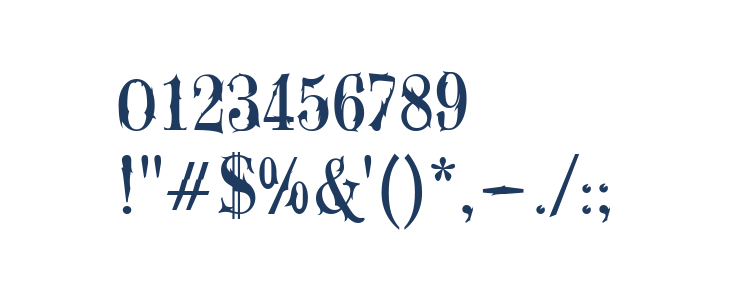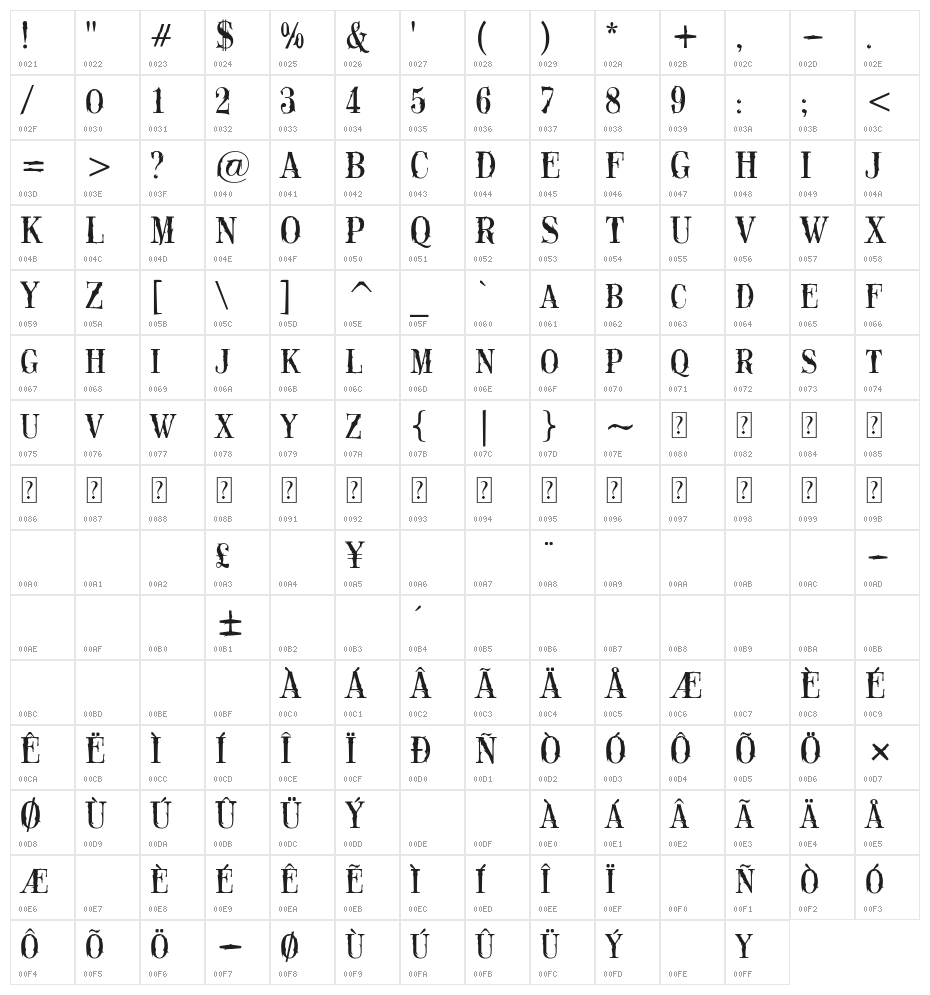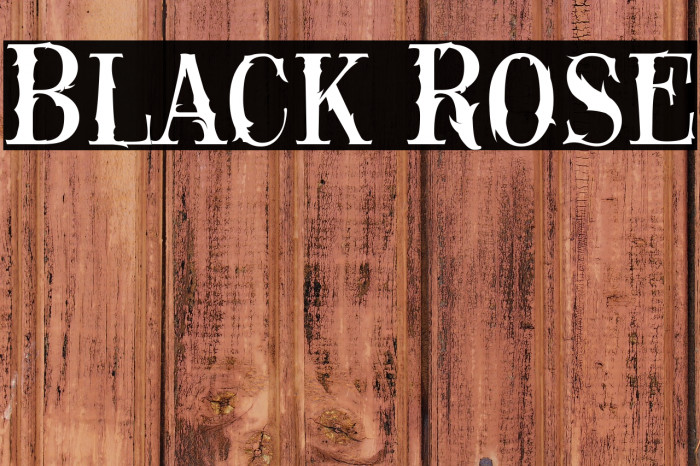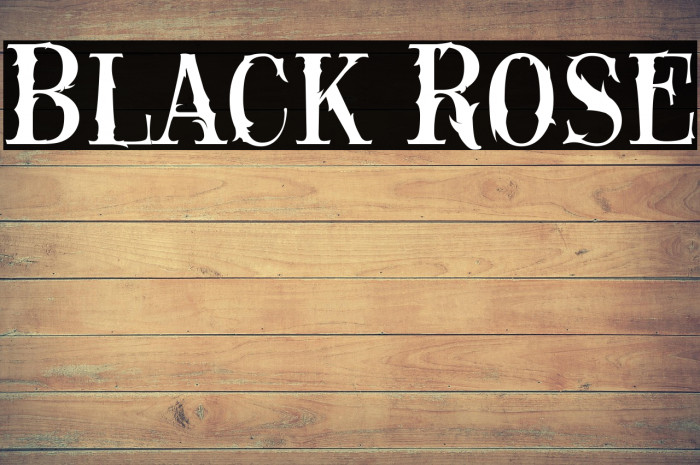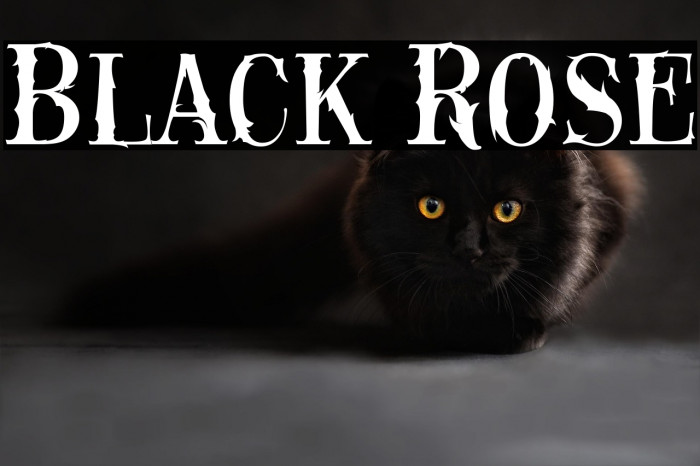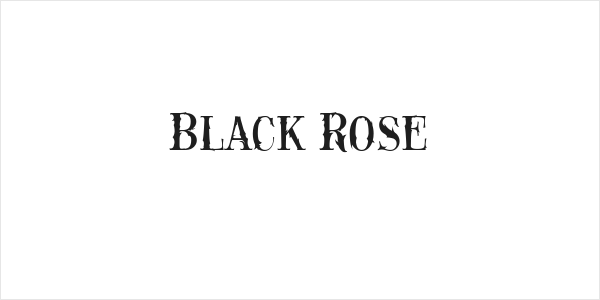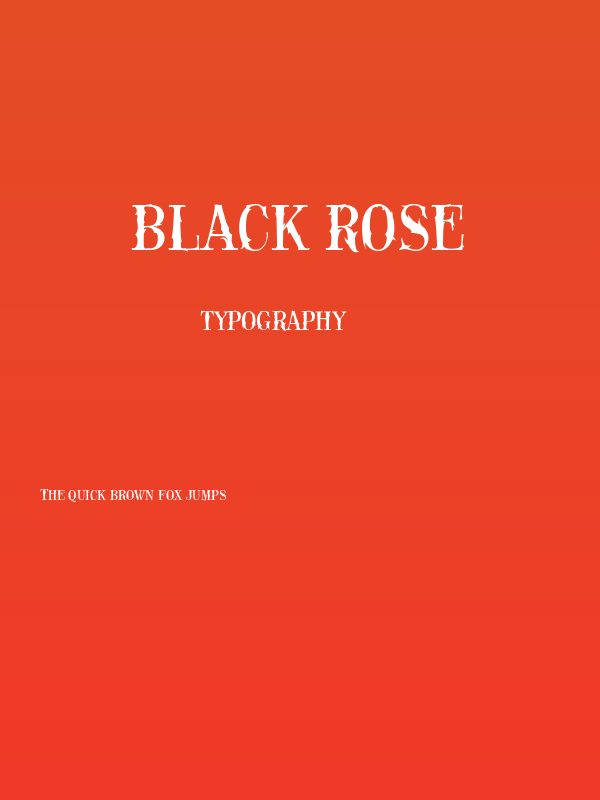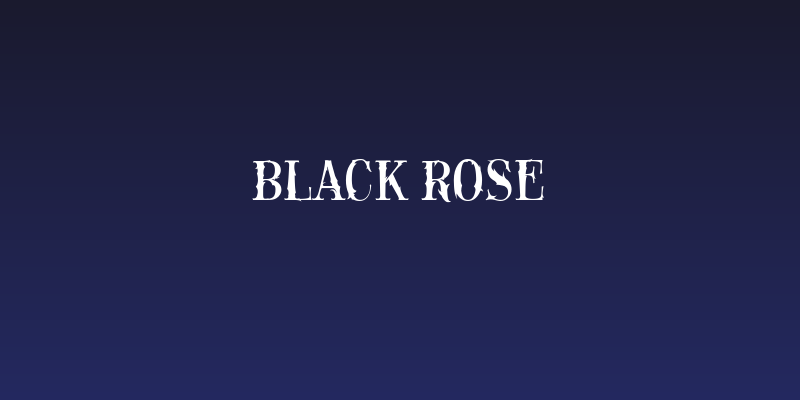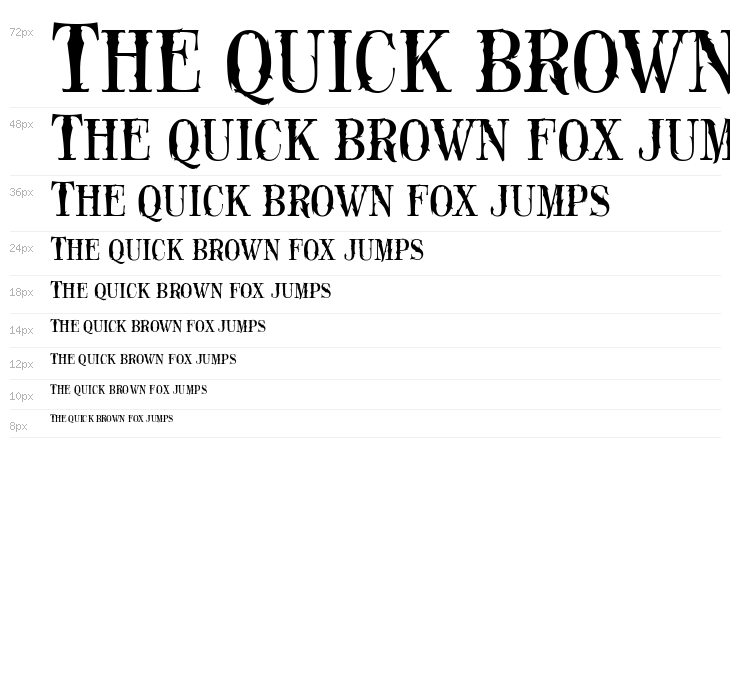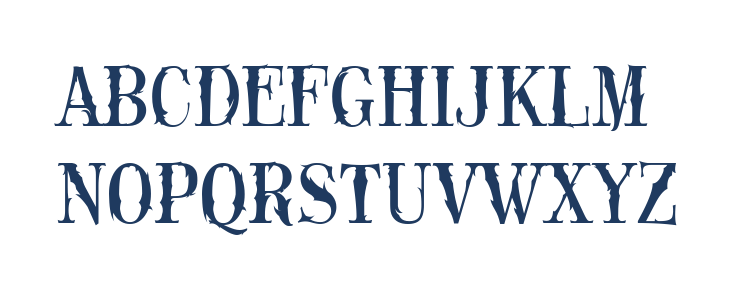
Black Rose Font
Black Rose Description
This font features a dramatic and bold design with a distressed, grunge-like appearance. The characters are serifed, with each letter exhibiting a unique, weathered texture that gives it a rugged and edgy feel. The uppercase and lowercase letters maintain a consistent style, with sharp edges and irregular outlines that suggest a sense of decay or erosion. The numerals and special characters follow the same aesthetic, ensuring a cohesive look across all glyphs. This font's distinctive style makes it ideal for projects that require a strong visual impact.